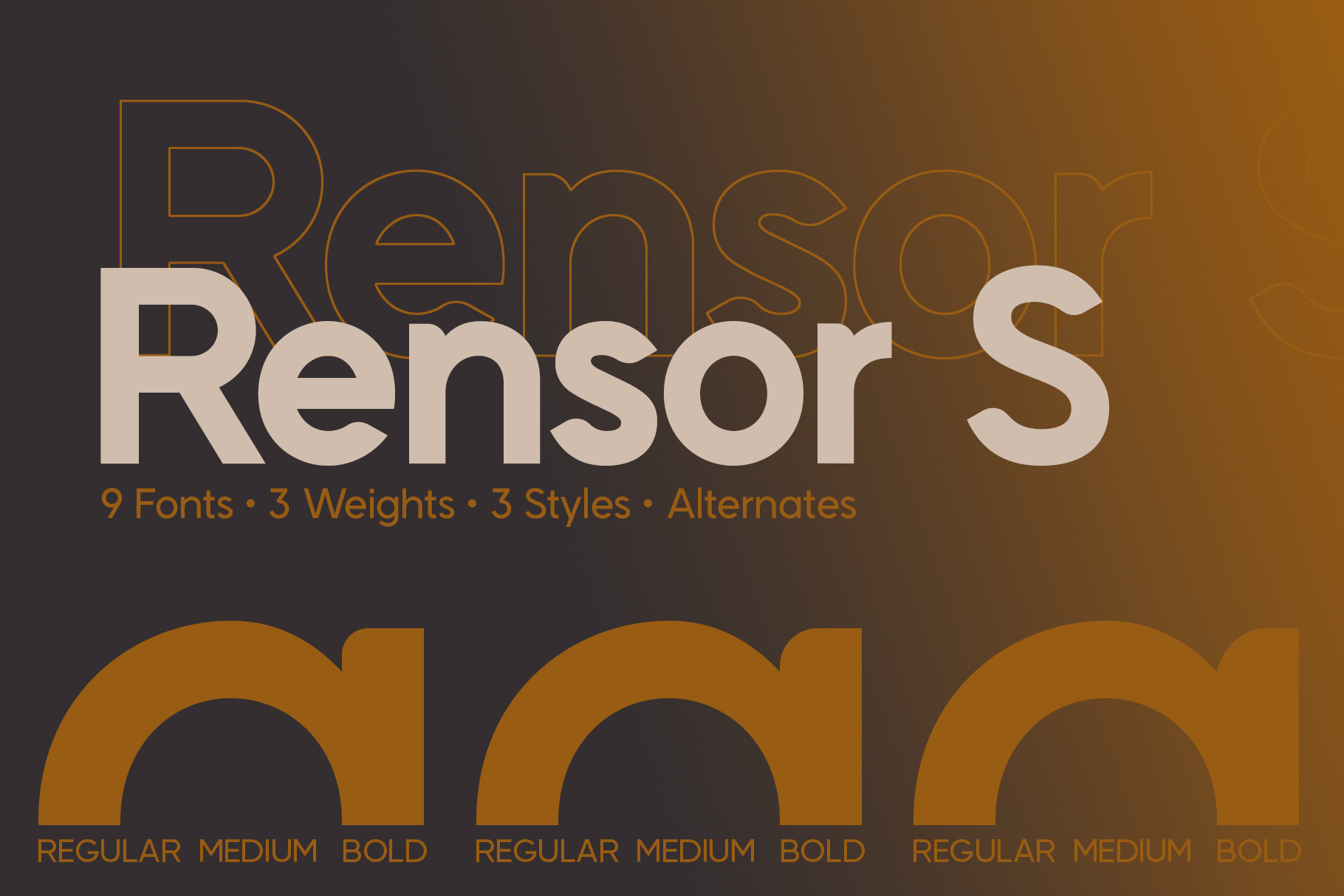
Rensor S – Minimalist Rounded Font
Rensor S — minimalist font with beautifully rounded, elegant edges and a crisp modern feel. Clean lines, soft curves, zero extra noise. Ideal for posters, UI/UX, mobile apps, branding, logos, signage, wayfinding, digital illustrations and beyond. Quiet confidence for modern projects.